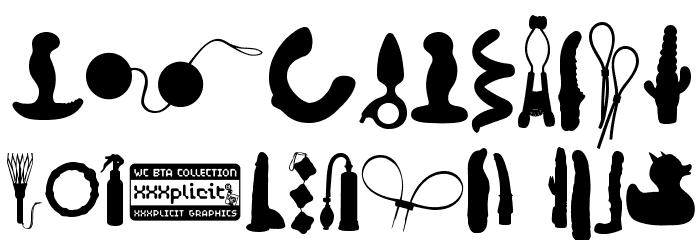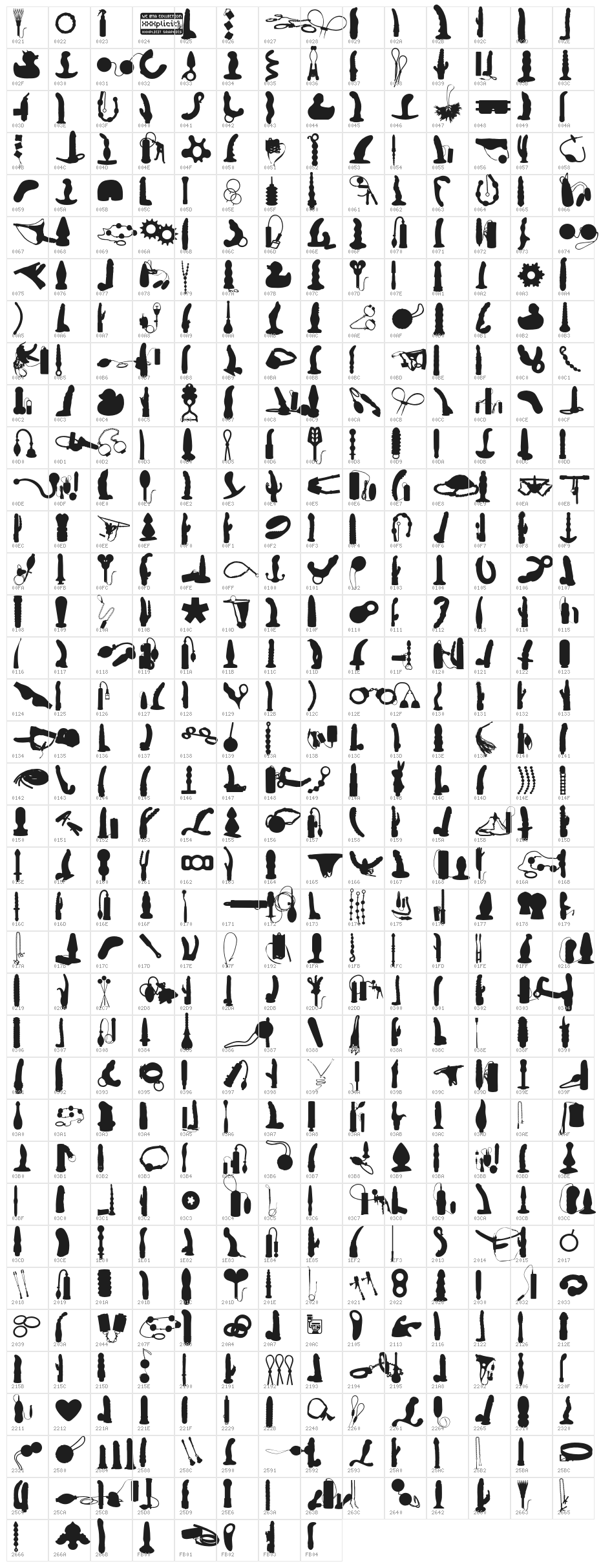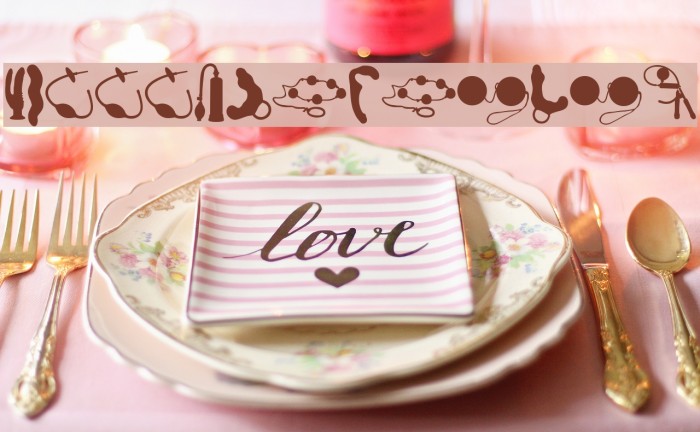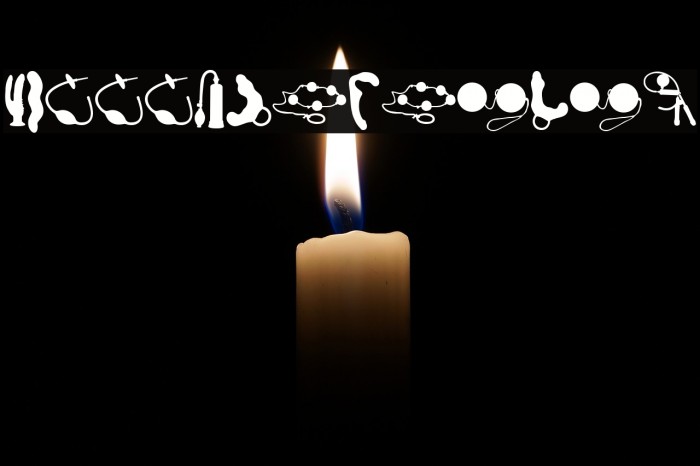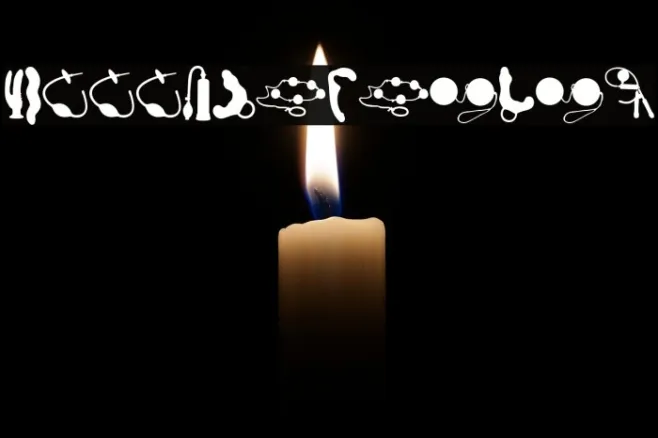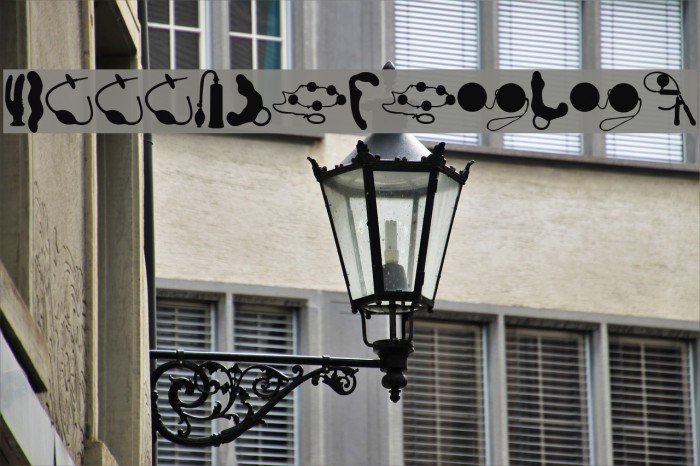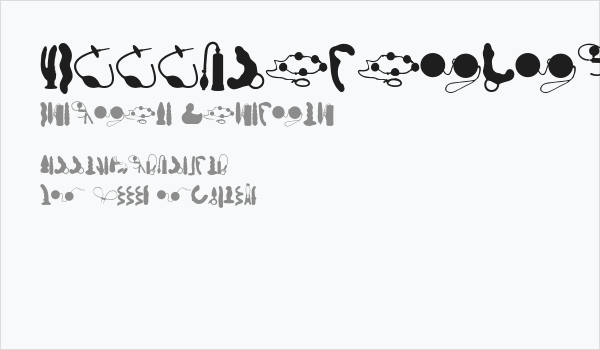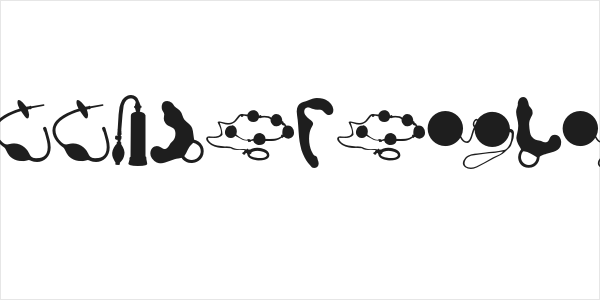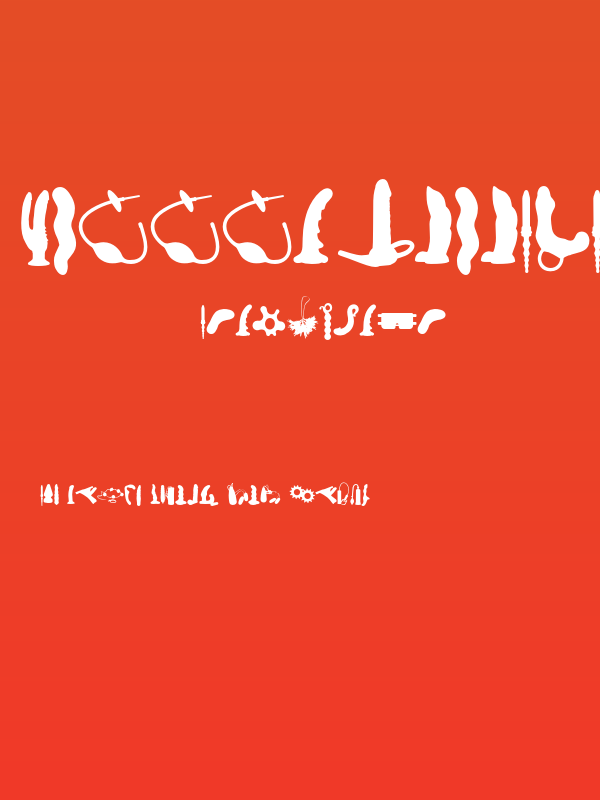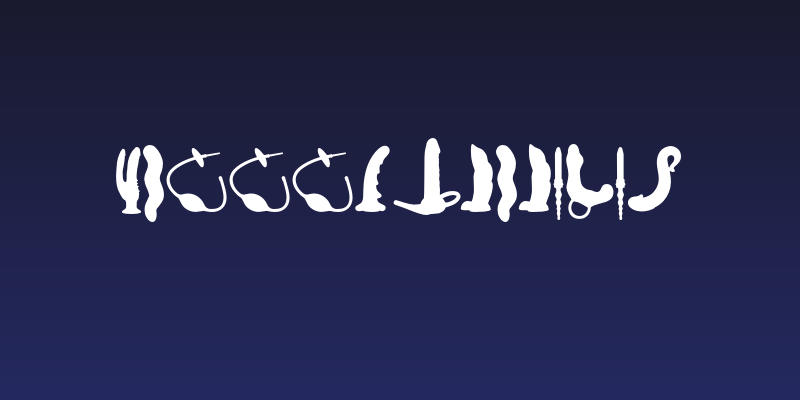
WCXXXplicitBta Font
WCXXXplicitBta Description
A highly decorative and novelty font composed entirely of silhouettes of adult-themed objects, with each character formed by a unique arrangement of these items. The letterforms are abstract and playful, prioritizing visual impact over legibility. The font is bold, with thick, solid shapes and minimal internal detail.
| Overall Style | Decorative, Playful, Novelty |
| Use Case | Logos, Headlines, Posters, Themed Graphics |
| Proposed Projects | Event posters, party invitations, novelty merchandise, themed branding, adult entertainment graphics. |